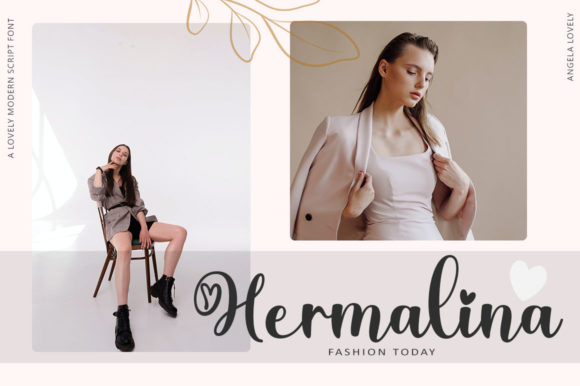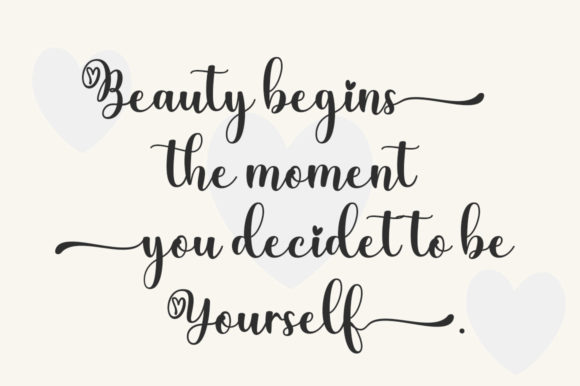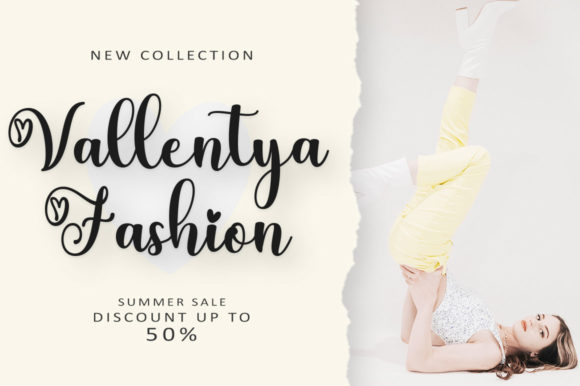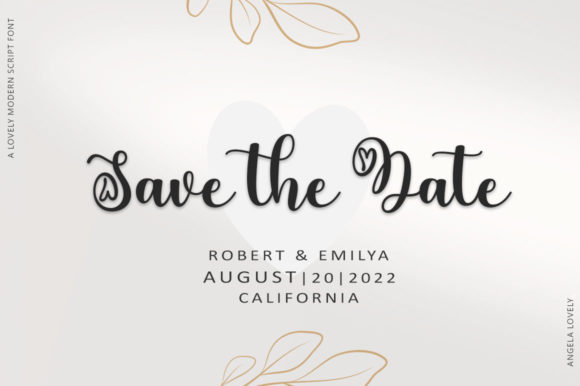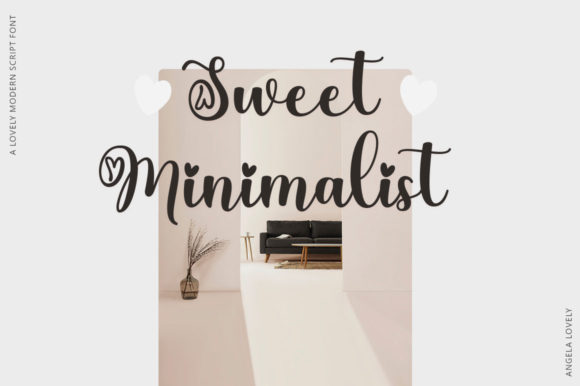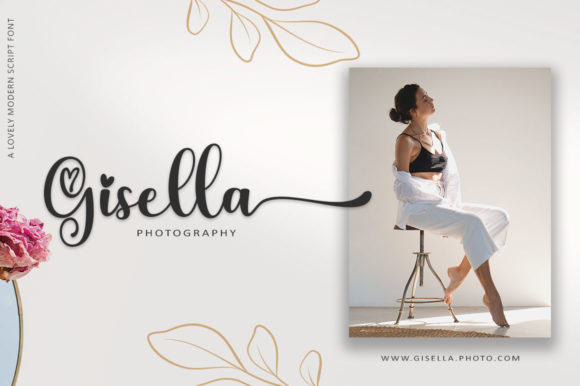
Introduction to Angela Lovely Font
Do you remember the feeling of holding a freshly sharpened pencil and creating your own handmade cards for friends and family? The joy of watching your scribbles come to life with every carefully crafted stroke? That’s the magic of handwritten fonts like the Angela Lovely Font.
For designers, finding the perfect font can be the difference between a great project and a truly exceptional one. And when it comes to handwritten fonts, few options are as sweet and delicate as the Angela Lovely Font. With its dainty and joyful feel, this font is perfect for a wide range of creative projects, from personal invitations to children’s book illustrations.
Key Features of Angela Lovely Font
- High-quality design resource ideal for creative projects, such as invitations, greeting cards, and posters.
- Unique, elegant script font with a touch of sophistication, perfect for adding a personal touch to any design project.
- Perfect for designers and artists working on various creative projects, from wedding invitations to branding materials.
Honest Review: Angela Lovely Font
I recently had the opportunity to work with the Angela Lovely Font, and I must say it’s been a game-changer for my creative projects. This beautiful script font is perfect for adding a touch of elegance and sophistication to any design.
- ✨ One of the things that stands out about the Angela Lovely Font is its high quality and crisp lines. It’s a true design resource that can elevate any project.
While the Angela Lovely Font is an excellent addition to any design library, there are a few limitations to be aware of.
- ⚠️ The font may not be suitable for very small text sizes, as the letters can become distorted.
Overall, I’m thoroughly impressed with the Angela Lovely Font and would highly recommend it to any designer looking to add a touch of whimsy and elegance to their creative project.
Angela Lovely Font
The Angela Lovely Font is a high-quality design resource ideal for creative projects. This elegant and sophisticated font is available for free download, allowing you to add a touch of class to your designs. With its transparent background, you can easily integrate it into your projects without any visual obstructions.
Common Use Cases for Angela Lovely Font
The Angela Lovely Font is ideal for a variety of creative projects, including wedding invitations, birthday cards, and business presentations. Its elegant and sophisticated design makes it perfect for formal events and corporate communications.